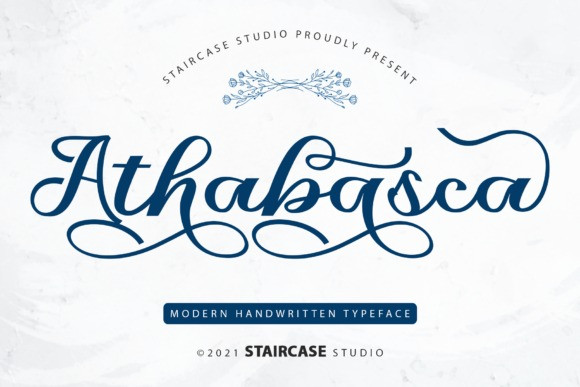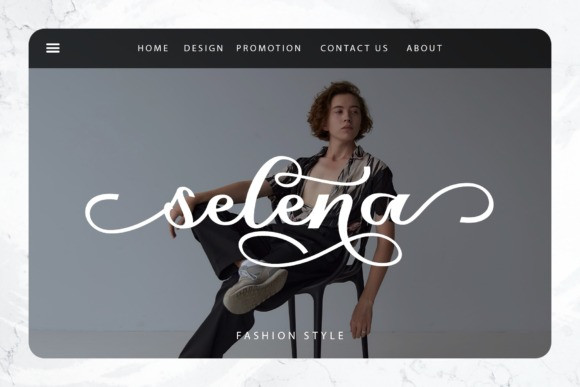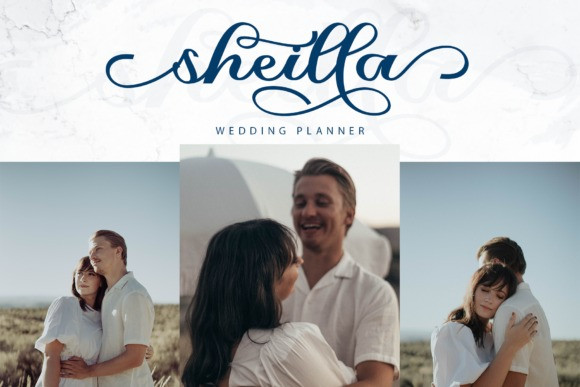
Athabasca Font
Athabasca is an elegant script font with a contemporary atmosphere and impeccable form, inspired by timeless classic calligraphy. This font is PUA encoded which means you can access all of the glyphs and swashes with ease!